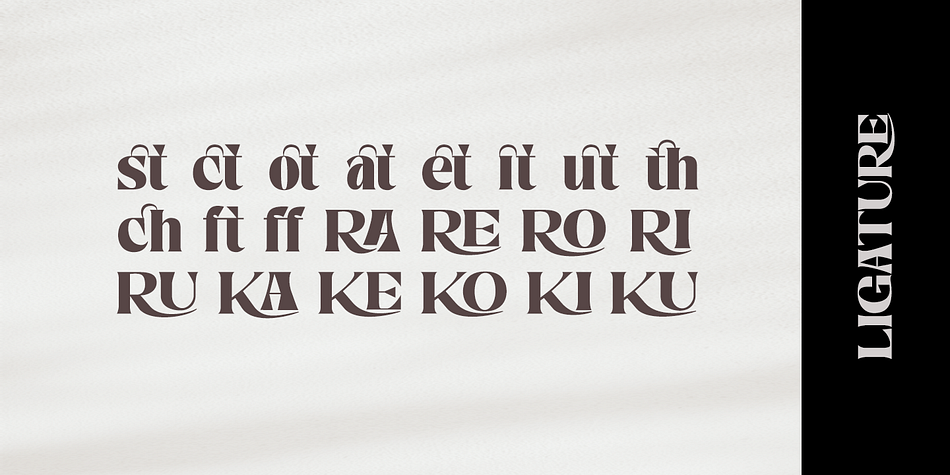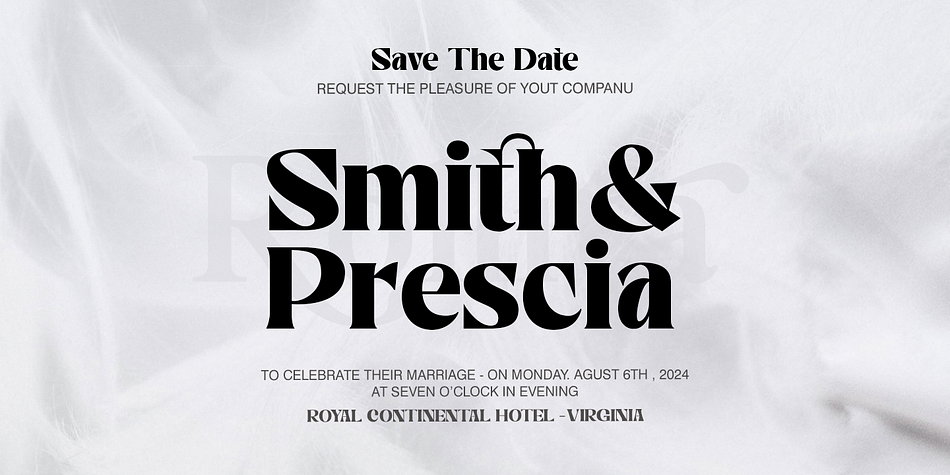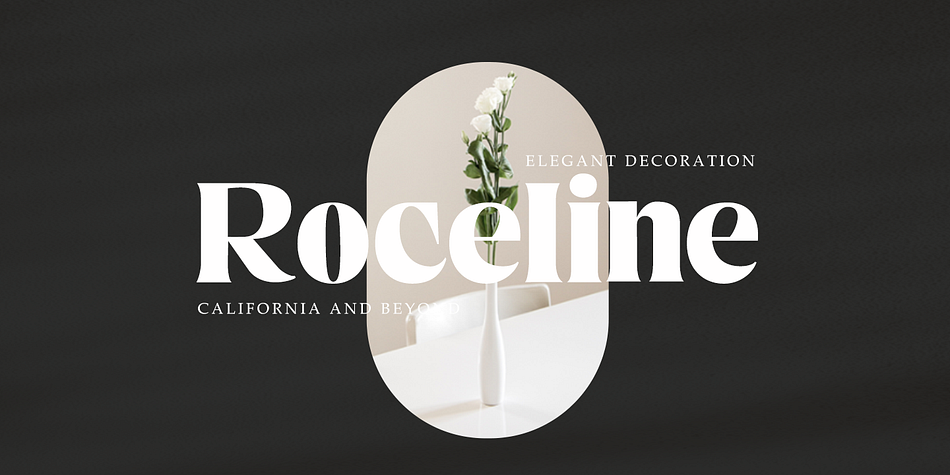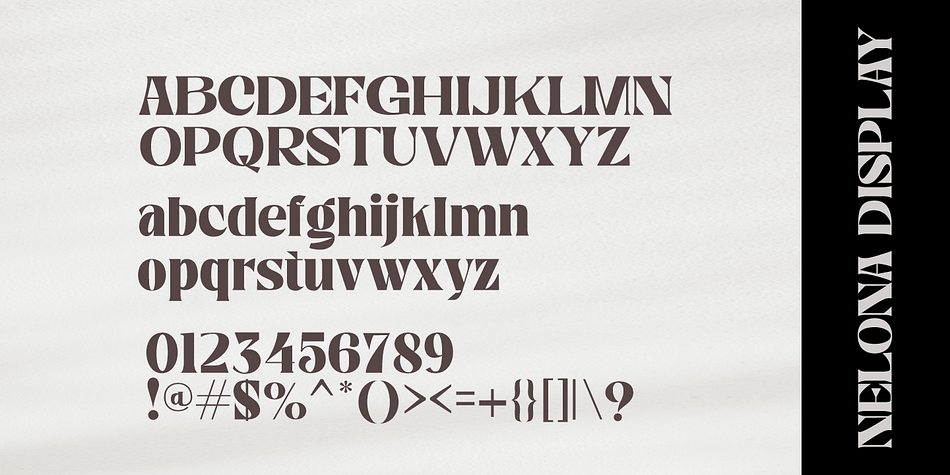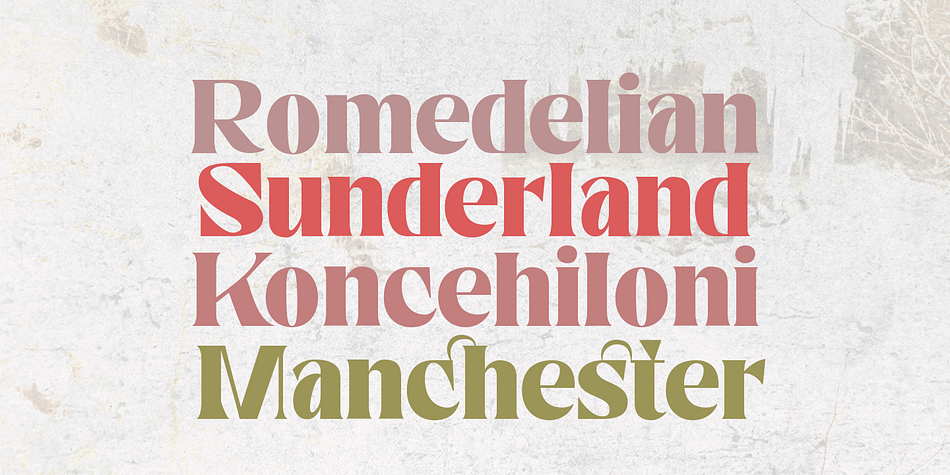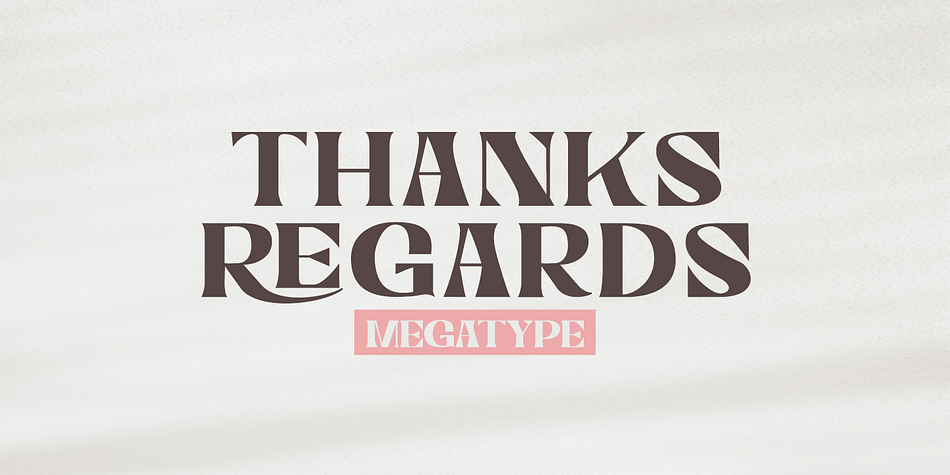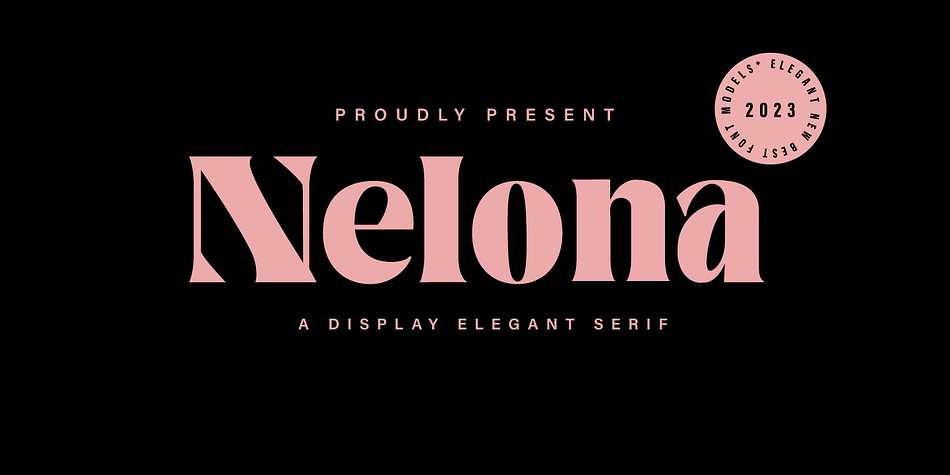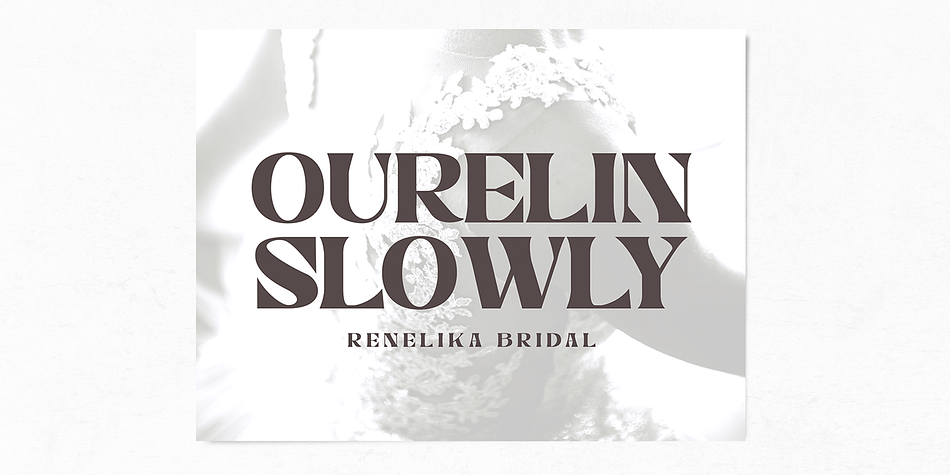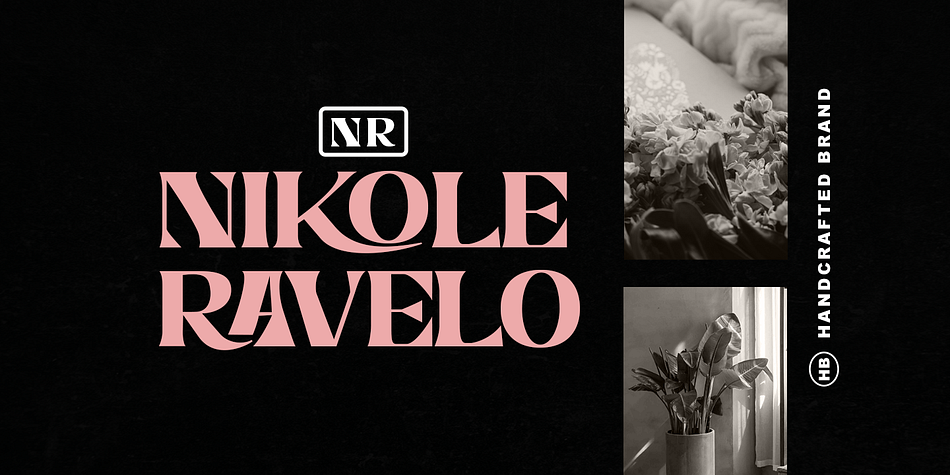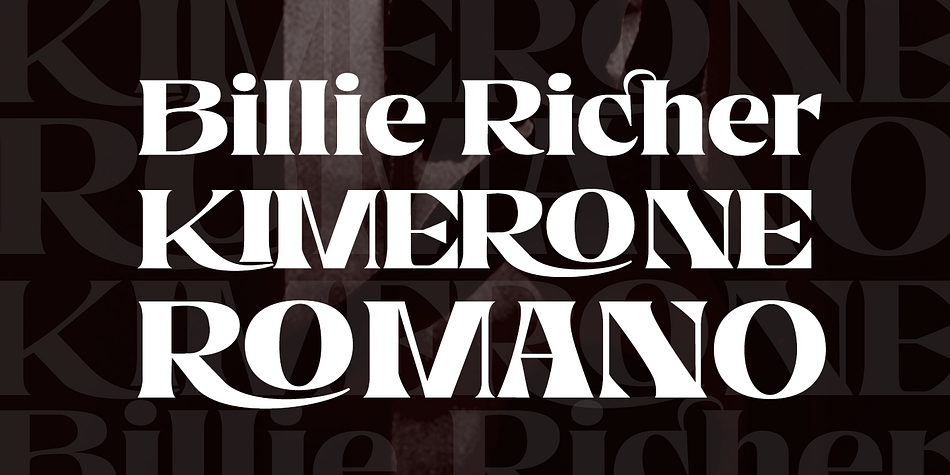
Nelona
Nelona is a retro font family published by Mega Type.
Nelona An elegant font designed when in a creative mood and perfect shape, inspired by the bold, natural look of serifs so beautiful for today’s fashion. bold, balanced and varied, born for luxury and beauty. including uppercase letters, numbers, and various kinds of punctuation.
Nelona is perfect for invitations, logos & branding, photography, advertising, watermarks, social media posts, product packaging, product designs, labels, wedding designs, stationery, special events or anything else needed to create a theme.
Nelona is built with OpenType features and includes initial and ending language styles, alternative characters for most lowercase letters, numbers, punctuation, alternatives, endings, and also supports other languages.